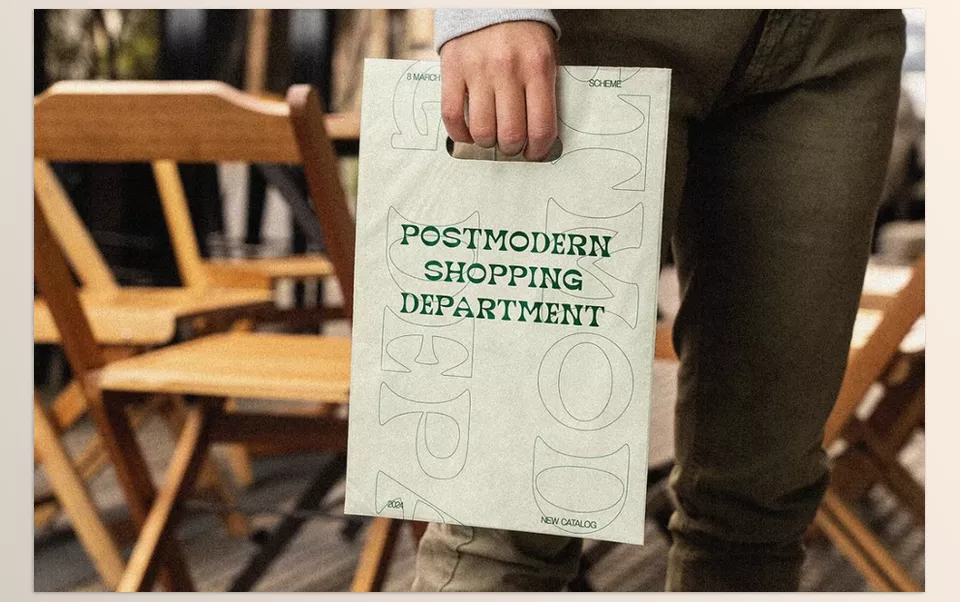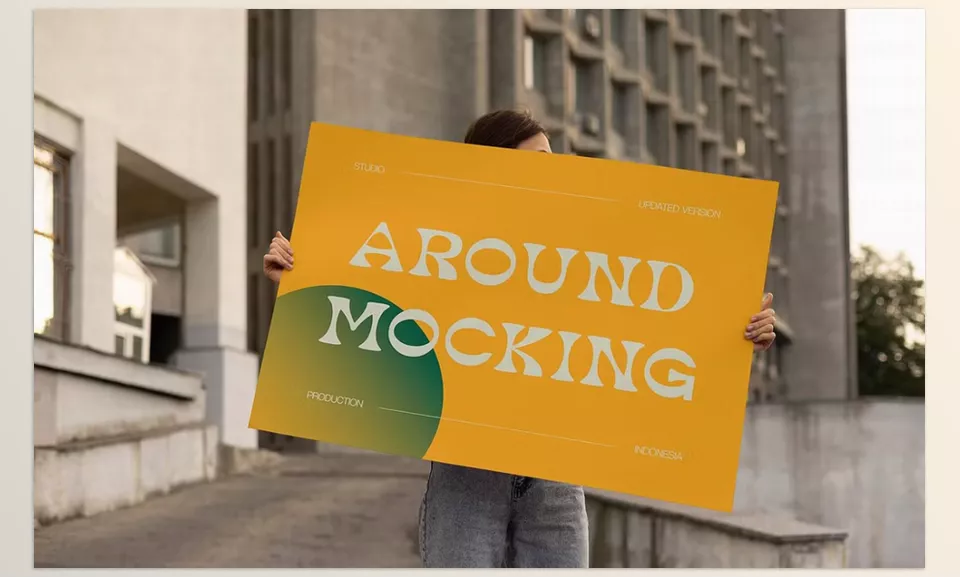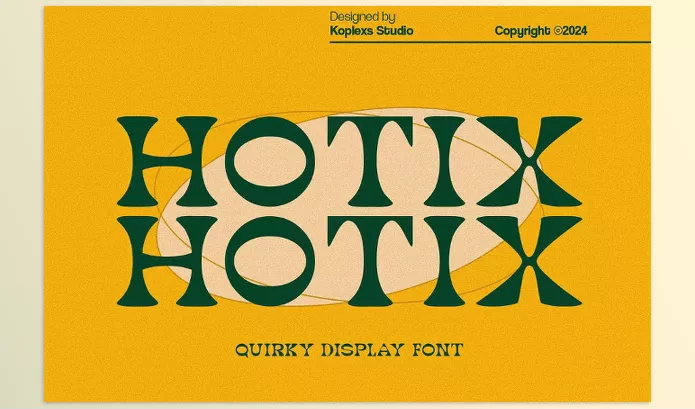
Hotix Quirky Display Font It is a fun typeface that adds a distinction look to design projects. You can use it on posters, headlines, logos, covers, social media branding, and packaging. It has a retro feel that blends with modern times and it’s reminiscence can be felt on its dynamic curves. Each letter is designed in a certain way that allows a stylish look while ensuring readability.
Koplexs Studio – Hotix Quirky Display Font Features
• Characterful and unmatched style in a display font.
• All in one, design posters, logos, the list goes on.
• Modern meets retro in an astonishing way.
• Unique style and crafted for maximum legibility.
• Perfect for astounding designs.
Image 1: Bring a fresh, dynamic edge to your designs with a font that blends retro charm with modern flair.
Hotix Quirky Display Font - Bring a fresh, dynamic edge to your designs with a font that blends retro charm with modern flair.
Image 2: Crafted for impact, this font adds personality and style to every headline, logo, and social media post.
Hotix Quirky Display Font - Crafted for impact, this font adds personality and style to every headline, logo, and social media post.